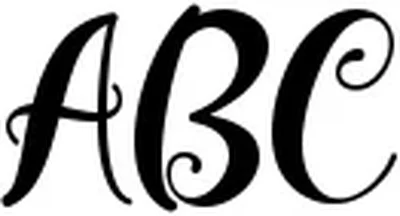
Christmas Holiday Monogram Font
Christmas Holiday Monogram combines clean construction with expressive detail, making it a dependable asset in any type toolkit.